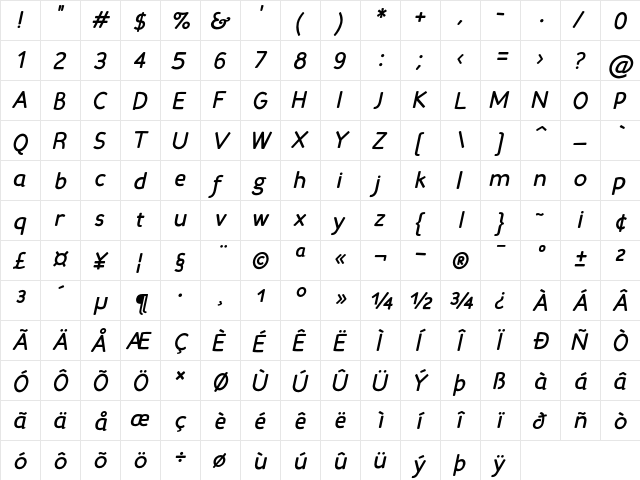
Candela Bold Italic
| Foundry | La Tipomatika |
| Designer | La Tipomatika |
Design Context for Candela Typeface
Candela takes a measured approach to typography — its balanced proportions and neutral character make it a reliable workhorse for both digital and print work. Its italic angle brings a sense of urgency and motion to the letterforms. The heavy weight commands attention and anchors typographic hierarchies.
Pro Tip: Use Candela for emphasis, pull quotes, and subheadings where its slanted energy can add rhythm to the layout.